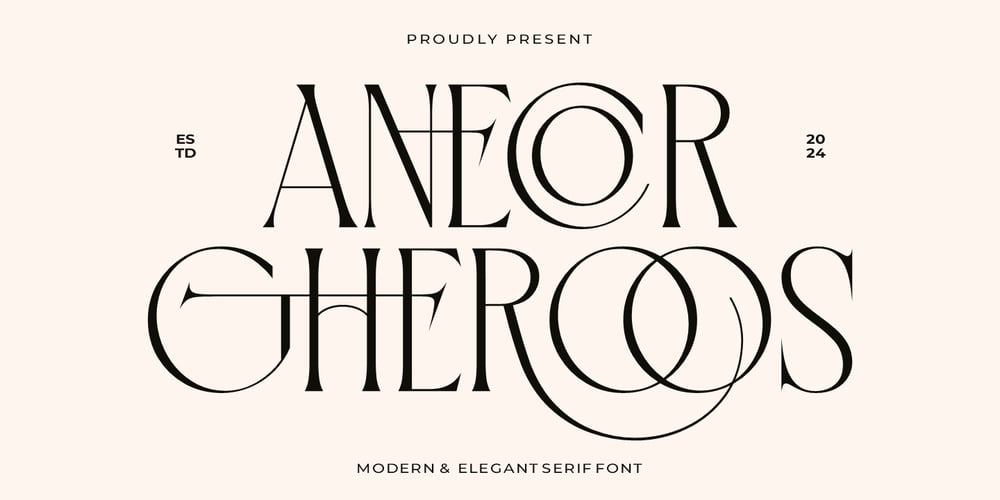
Anecor Gheroos
Anecor Gheroos font
Anecor Gheroos Font Family was designed by Burhan Afif and published by HansCo. Anecor Gheroos contains 1 styles and family package options. Anecor Gheroos Font is a classy display serif font with unique look that is perfect for multipurpose projects. Made by the concept of romantic vibes and made it into a modern yet luxury style. This font is also looks elegant and will fit well in any design and very recommended for logo, crafts, posters, books, branding, quotes, print templates, packaging, invitations, product labels, advertising, wedding project and more. This typeface comes in uppercase, lowercase, with punctuation, symbols, numerals, ligature and stylistic alternates. This font is PUA encoded which means you can access all of the charming glyphs and swashes with Character Map on Windows or Font Book on Mac.